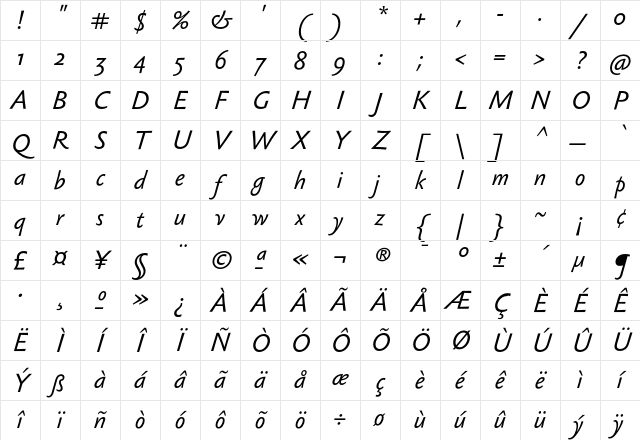
Sebastian Text Italic
Foundry: Frantisek Storm, www.stormtype.com
Design Context for Sebastian Text
Sebastian Text is a composed and adaptable typeface that performs quietly and consistently across a wide range of design contexts. The slanted form adds forward momentum and visual energy.
Pro Tip: Use Sebastian Text for emphasis, pull quotes, and subheadings where its slanted energy can add rhythm to the layout.
Who designed the Sebastian Text Italic font?